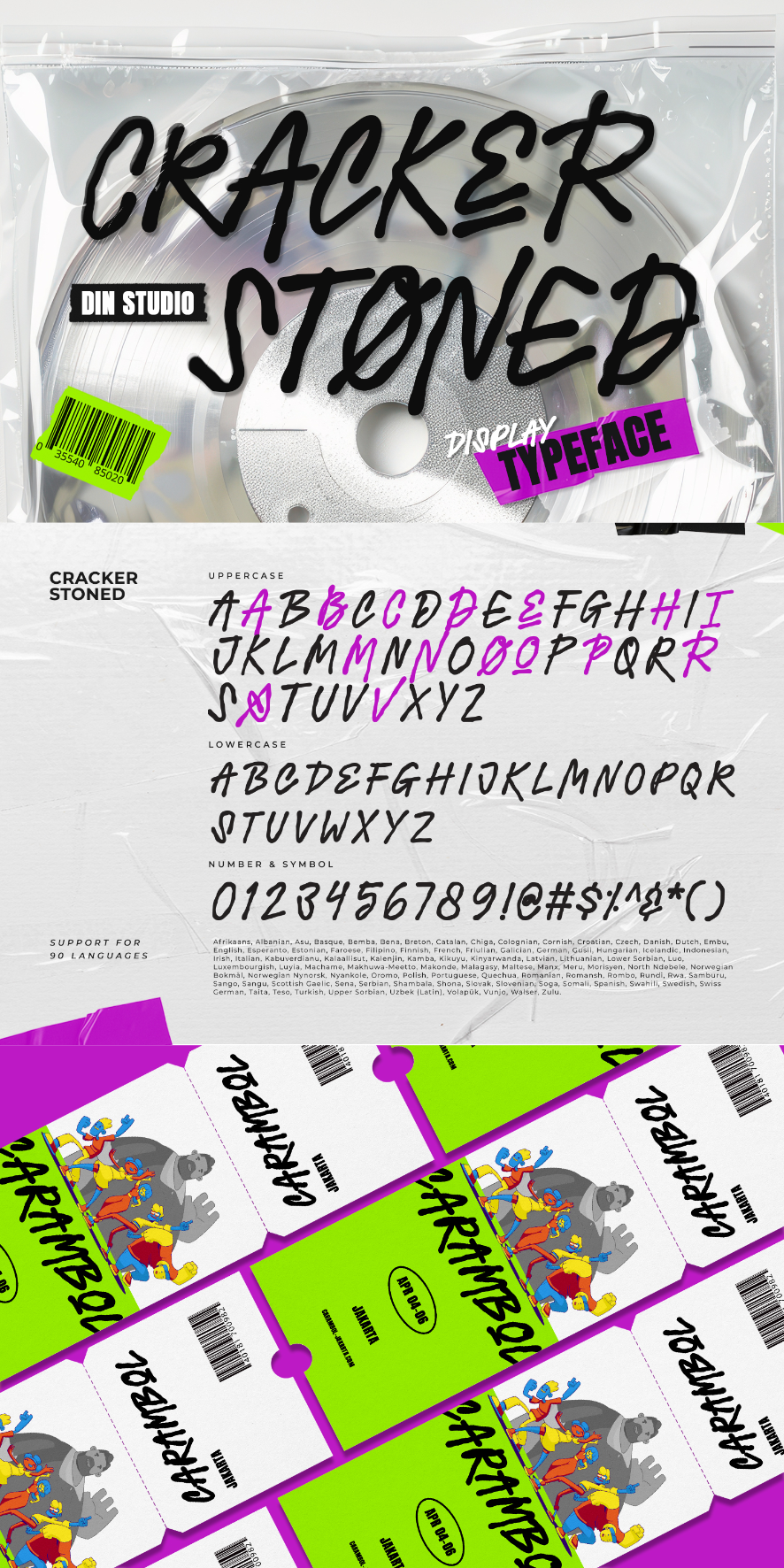
Cracker Stoned Font
About Cracker Stoned
Cracker Stoned is a uniquely designed display font that combines a delicate light weight with a playful touch of wavy line outlines. Each letter is meticulously crafted with consistent proportions, creating a harmonious and balanced appearance while maintaining a sense of creative spontaneity. This distinctive style makes Cracker Stoned an excellent choice for projects seeking a blend of modern elegance and quirky charm. Add a fresh, artistic vibe to your designs with this one-of-a-kind typeface. In addition, enjoy the features here.
Cracker Stoned fits in logos, posters, branding materials, print media, and many more designs. Find out more ways to use this font by taking a look at the font preview.